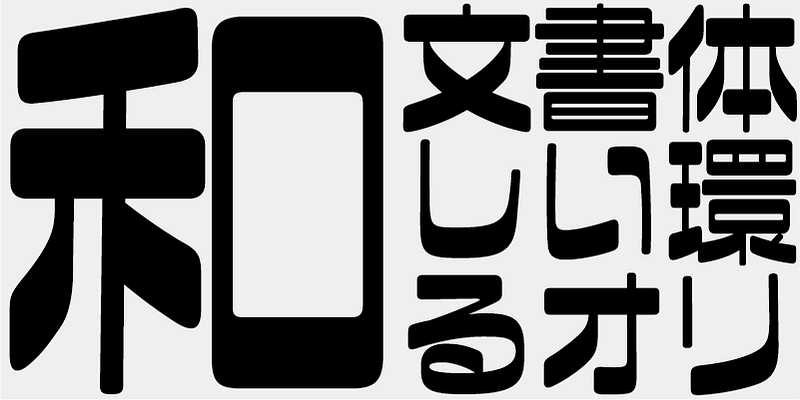
TA Shiguma Font Free Download is a bold and distinctive display typeface with a modern Japanese-inspired design. Featuring sharp angles, thick strokes, and a strong geometric presence, TA Shiguma is perfect for gaming graphics, tech branding, posters, logos, and any project that demands attention with a futuristic or edgy flair.
This font stands out with its stylized characters and aggressive visual energy—great for headlines and titles where impact is key. It supports both Latin and Japanese scripts, making it ideal for bilingual designs and international creative projects looking for a dynamic, contemporary look.